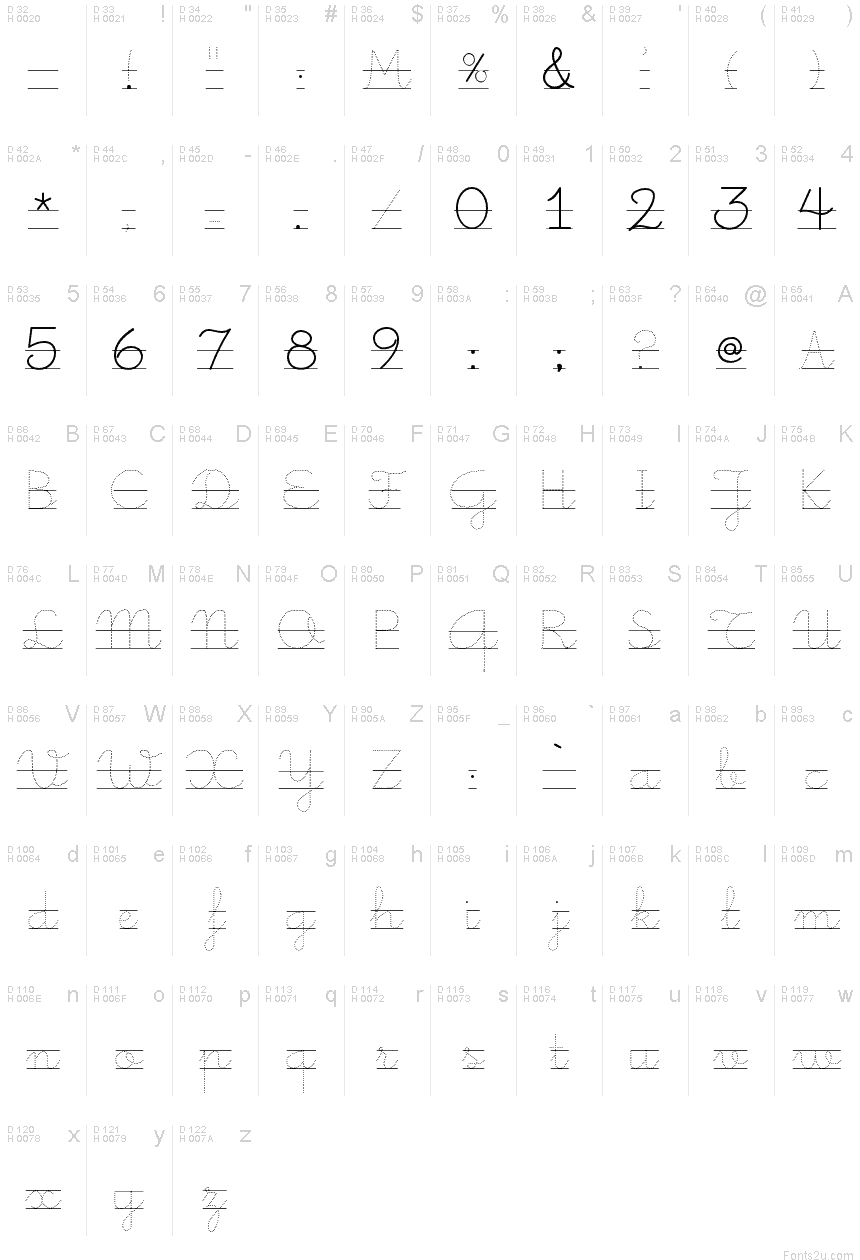
Little School 6
Little School 6 by Alberto Gomez Gomez is a free school script designed as dotted tracing letters for early writing practice. Tall loops and rounded joins echo classroom handwriting models.
Handwriting worksheets are its clearest use, with the dotted strokes providing an inviting path for pencil practice. It also suits alphabet posters, activity books, and classroom printables aimed at young learners. Simple illustrations of pencils, notebooks, or schoolroom objects can turn the traced letters into part of a complete learning exercise.